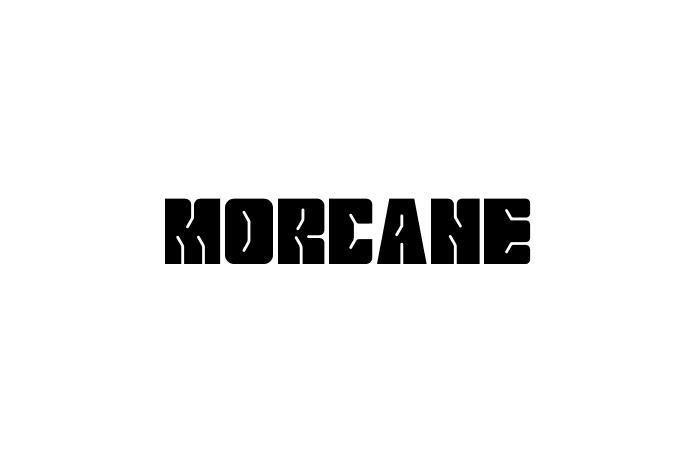
Rustwood Font
Rustwood is a Retro Display Font perfect for designers, branding experts, and marketers who want to create a unique, nostalgic design. It fits well in logo design, branding campaigns. Rustwood font grabs attention with its bold, handcrafted style. It combines vintage appeal with a modern edge.
Font designer PINISIART TEAM
Typeface classification Display,Retro